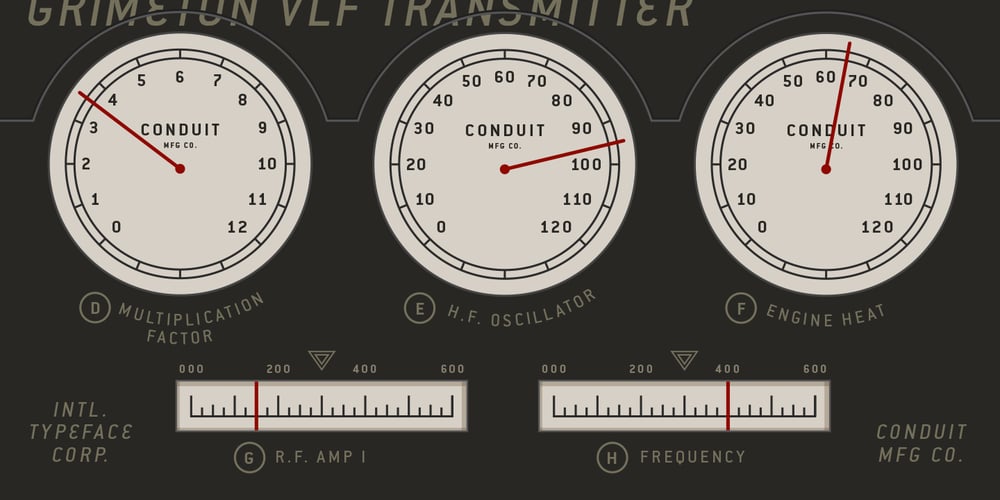
ITC Conduit
ITC Conduit font
ITC Conduit Font Family was designed by Mark van Bronkhorst and published by ITC. ITC Conduit contains 14 styles and family package options. A no-nonsense modern sans serif design, the ITC Conduit type family embodies an earnest vernacular spirit. Its designer, Mark Van Bronkhorst, explains: “It’s the kind of lettering you might find on boilers, assembly diagrams, and desiccant packets,” he explains. “It’s plain, grid-based, visually incompetent, yet legible and direct.” Brilliantly assembled from a typographic kit of parts, ITC Conduit’s letterforms project a coolness, without feeling austere or unapproachable. It’s an excellent choice for publication, packaging, or even wayfinding design systems. The ITC Conduit collection is available in 14 styles, with weights from extra light to black—all with matching italic designs. An easy, efficient way to bolster your go-to typographic arsenal, add it to your type library today!